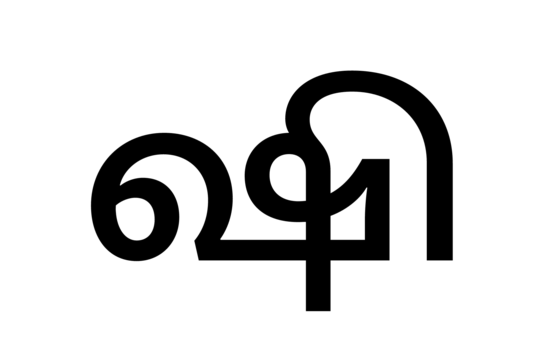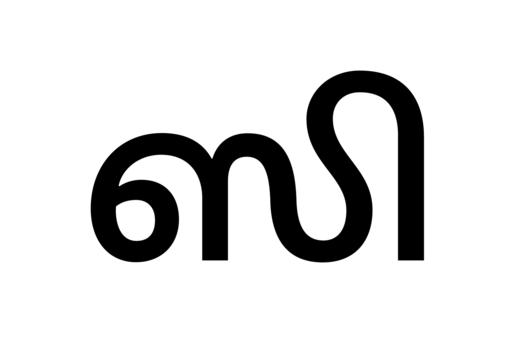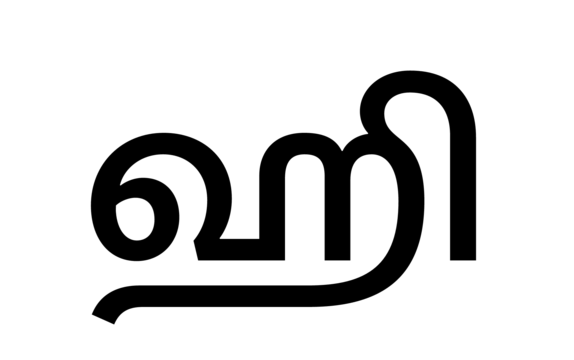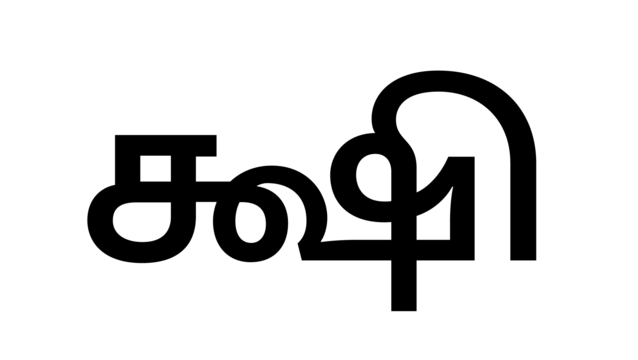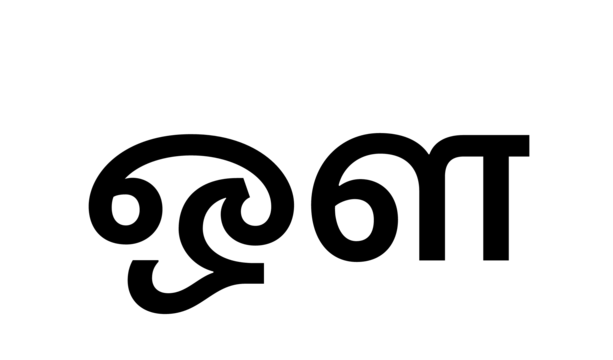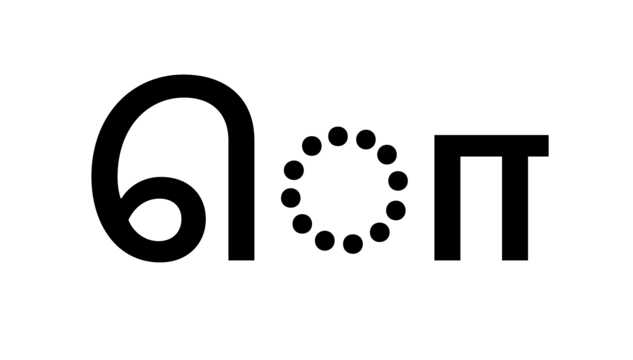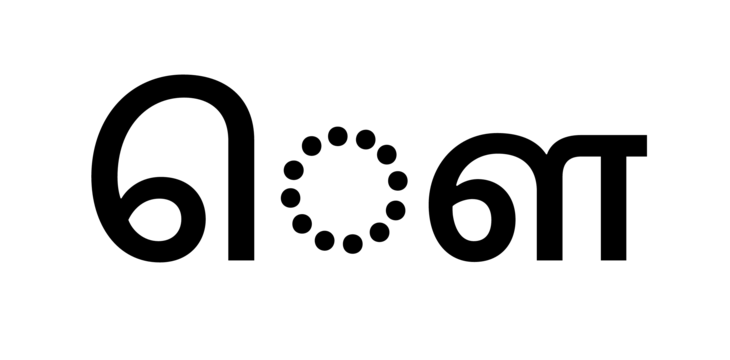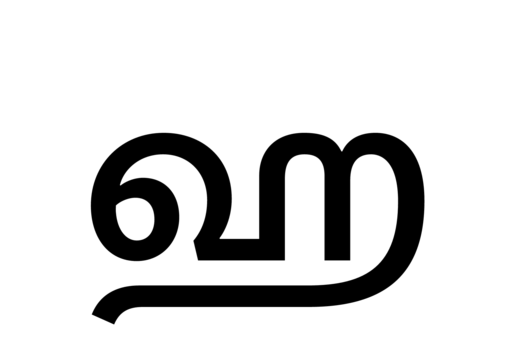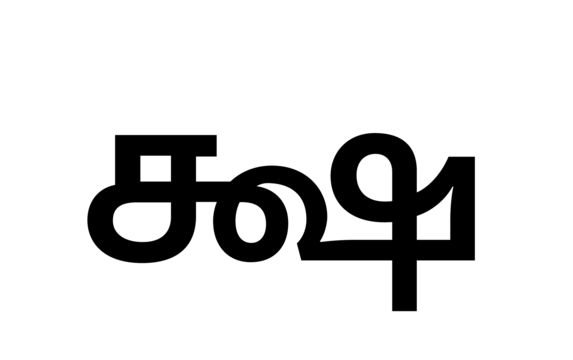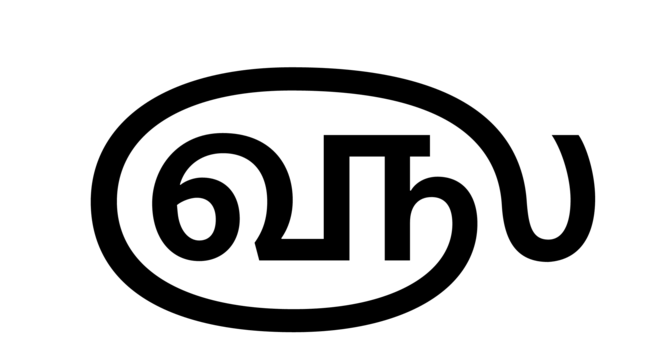
An elegant low contrast Tamil typeface suitable for both body and display text. Part of the super family Kohinoor Multiscript. Kohinoor Tamil comes in total 10 styles and has full support for the conjuncts and ligatures.
| Family Name | Kohinoor Tamil |
| Designer(s) | Satya Rajpurohit |
| Release Date | September 3, 2010 |
| Available Style | Light, Light Italic, Regular, Italic, Medium, Medium Italic, Semibold, Semibold Italic, Bold, Bold Italic |
| Classification | Sans, Display |
| Supported Languages | Tamil |